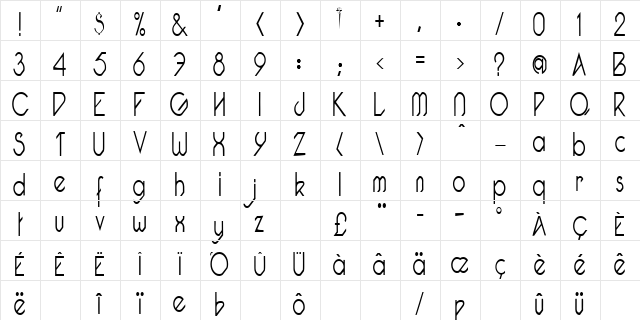
Pacotillenarrow light
Style: light
Design Context for Pacotillenarrow
Pacotillenarrow is a composed and adaptable typeface that performs quietly and consistently across a wide range of design contexts. Its slender proportions lend an understated elegance to any composition. Its narrow stance lets it pack a punch even in space-constrained designs.